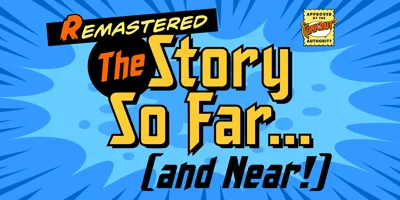
The Story So Far & Near Font
The Story So Far & Near Font is perfect for storytelling blog headers, narrative book covers, memoir typography, documentary film titles, personal journey branding, life coaching materials, autobiography design, and reflective content marketing. This narratively expressive typeface excels in projects requiring emotional depth and personal storytelling where intimate narratives meet contemporary design communication.
What makes The Story So Far & Near Font exciting is its beautiful embodiment of narrative progression and personal journey through thoughtfully crafted letterforms that capture the essence of storytelling and life's unfolding chapters. The font features contemplative characters with narrative proportions and journey-inspired details that convey reflection, growth, and the meaningful connections between past experiences and present moments. Its storytelling character makes it perfect for authors, coaches, and brands celebrating personal growth and the power of shared human experiences.
The Story So Far & Near Font family includes multiple weights and narrative variations that enhance its storytelling appeal while providing design flexibility for personal narrative and memoir applications. The family typically offers light, regular, medium, semibold, and bold weights, along with reflective alternates, journey symbols, and narrative ornaments that complement storytelling and personal development design themes perfectly.
Whether you're developing memoir publishing materials, creating personal coaching brand identity, or designing reflective content campaigns, The Story So Far & Near Font provides the perfect narrative solution for projects celebrating personal stories and human connection. This font's emotional depth and storytelling authenticity make it essential for authors and brands helping people process, share, and celebrate their life journeys.
The narratively crafted letterforms and reflective proportions of The Story So Far & Near Font create immediate emotional connections to personal storytelling while maintaining excellent readability across all narrative applications. Its distinctive journey personality and storytelling symbolism make it an invaluable tool for writers, coaches, and content creators working with personal narratives and human experience themes. Download The Story So Far & Near Font today and tell your story with this beautifully expressive typeface that perfectly captures the emotional richness of personal narratives and the continuing journey of human experience.